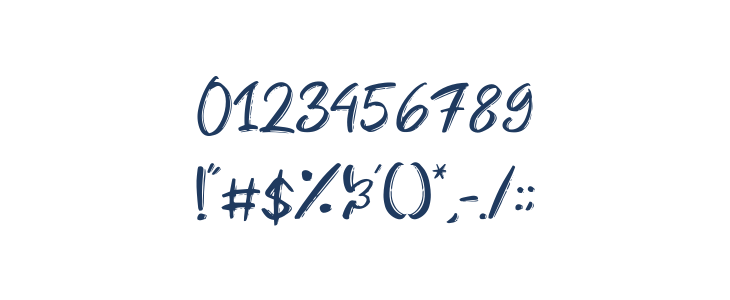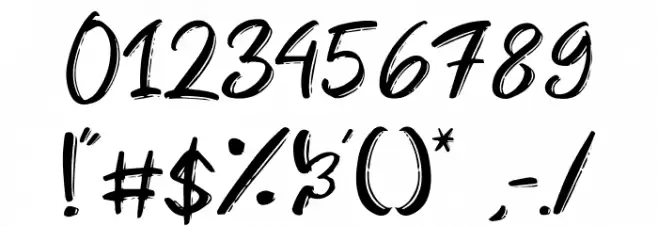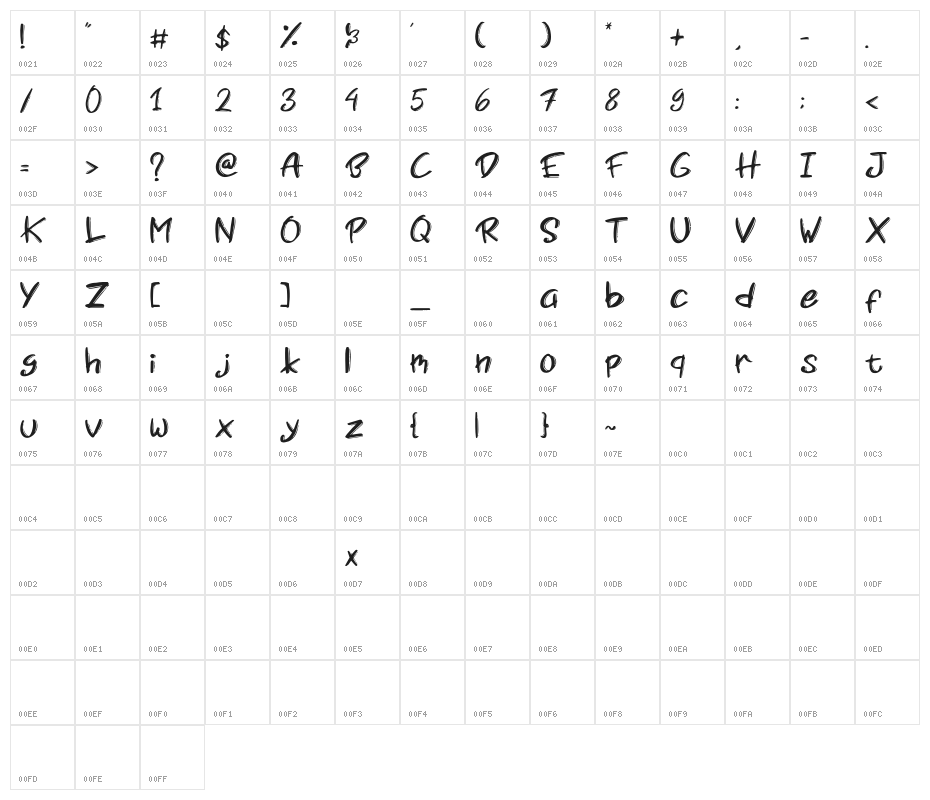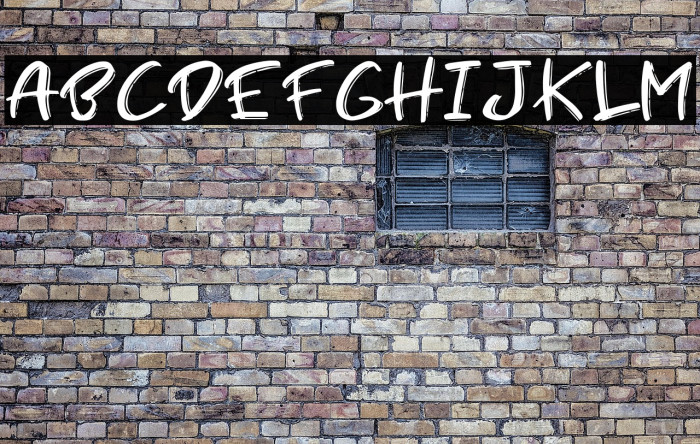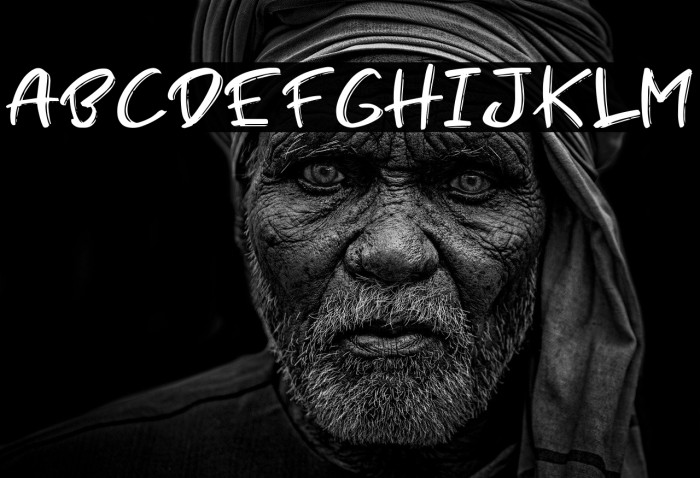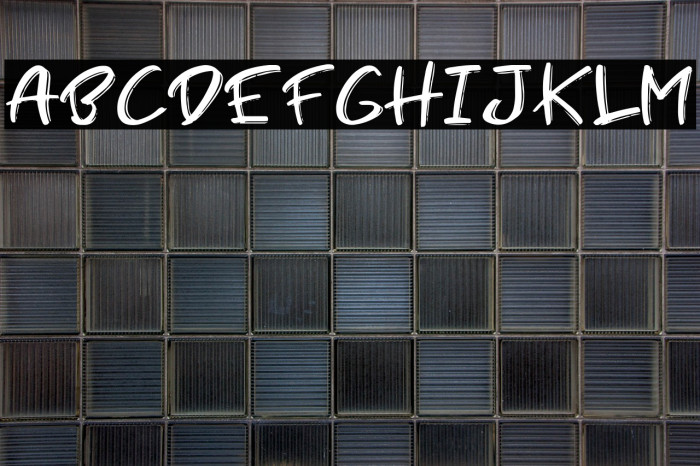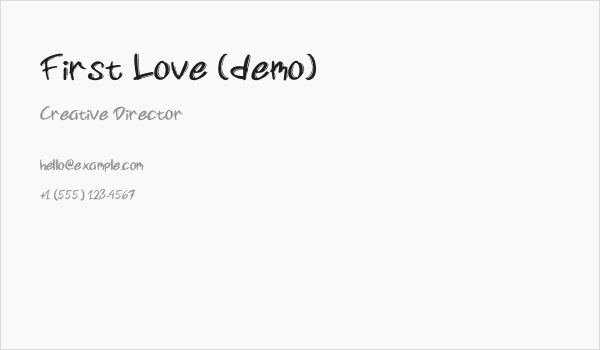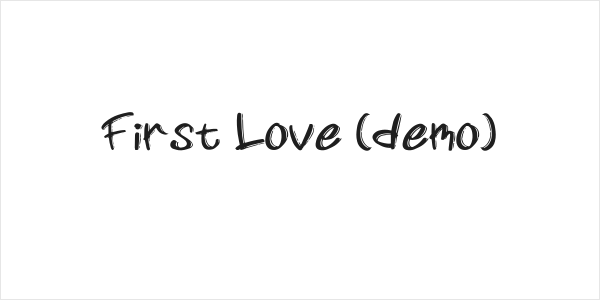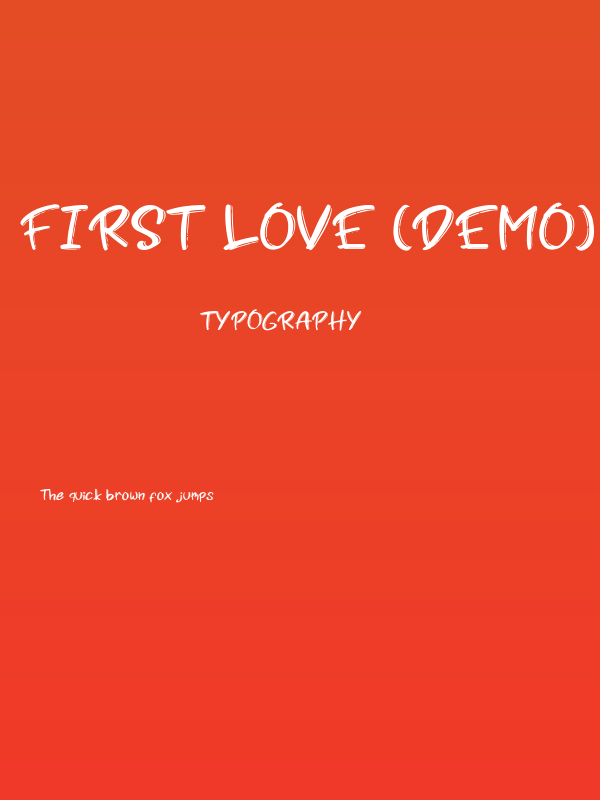
First Love (demo) Font
First Love (demo) Description
This font exudes a playful and energetic vibe, characterized by its handwritten style with bold strokes and a slightly irregular baseline. The letters are dynamic and expressive, with a brush-like texture that adds a sense of movement and personality. The uppercase and lowercase letters maintain a consistent style, while the numbers and special characters complement the overall aesthetic. This font's informal and lively appearance makes it suitable for creative and casual projects.
Overall StylePlayful, Energetic
Use CaseHeadlines, Logos, Informal Text
Proposed ProjectsIdeal for greeting cards, children's books, playful branding, and social media graphics.